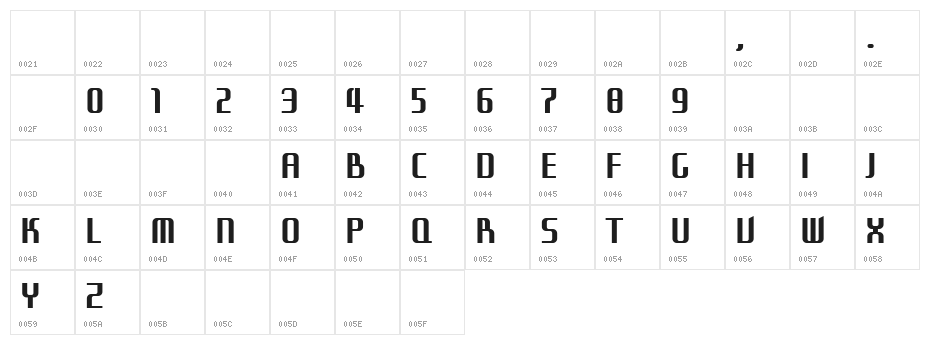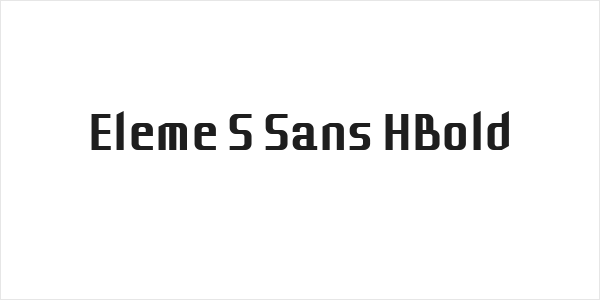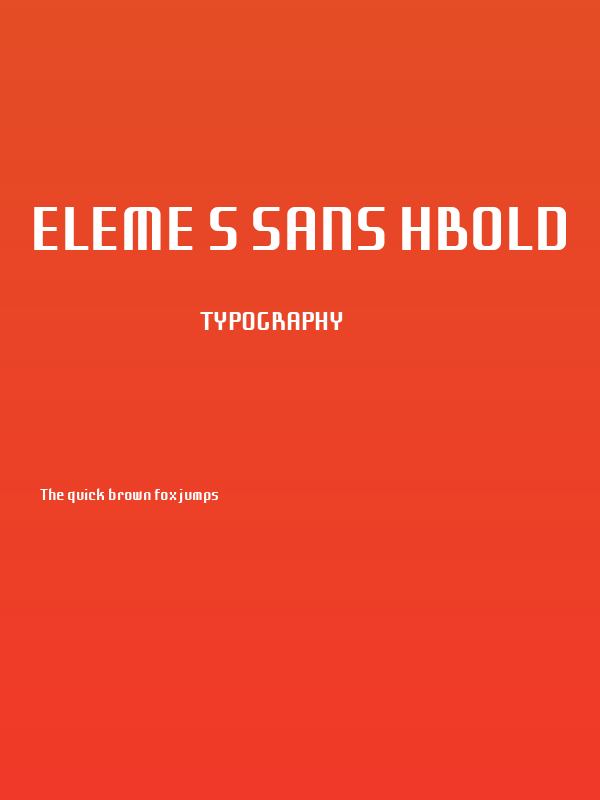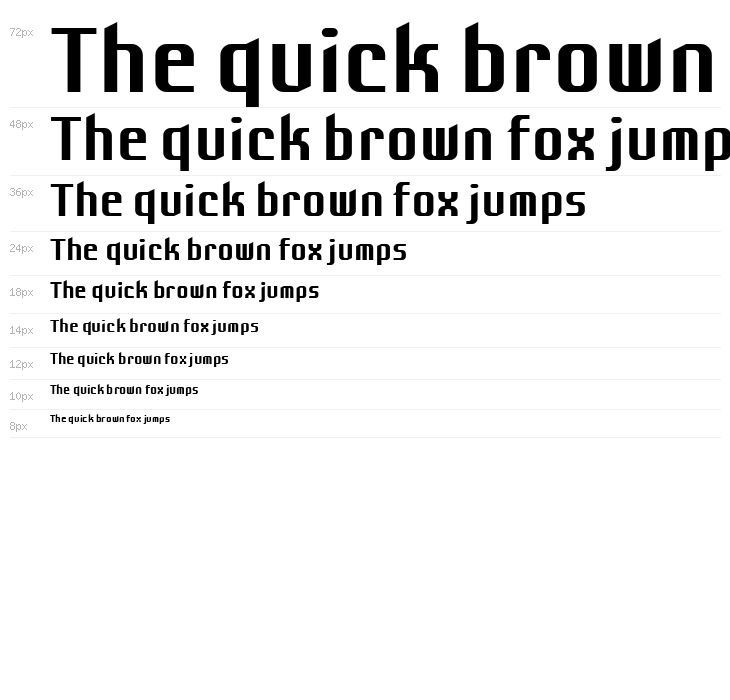
Eleme S Sans HBold Font
Eleme S Sans HBold Description
This font features a bold and modern sans-serif style with a geometric influence. The characters are uniform in width, providing a clean and structured appearance. The uppercase letters are tall and slightly condensed, while the lowercase letters maintain a consistent height, ensuring readability. The numbers are clear and distinct, matching the overall boldness of the alphabet. Special characters are designed to complement the font's strong lines and geometric shapes, making it suitable for impactful designs.